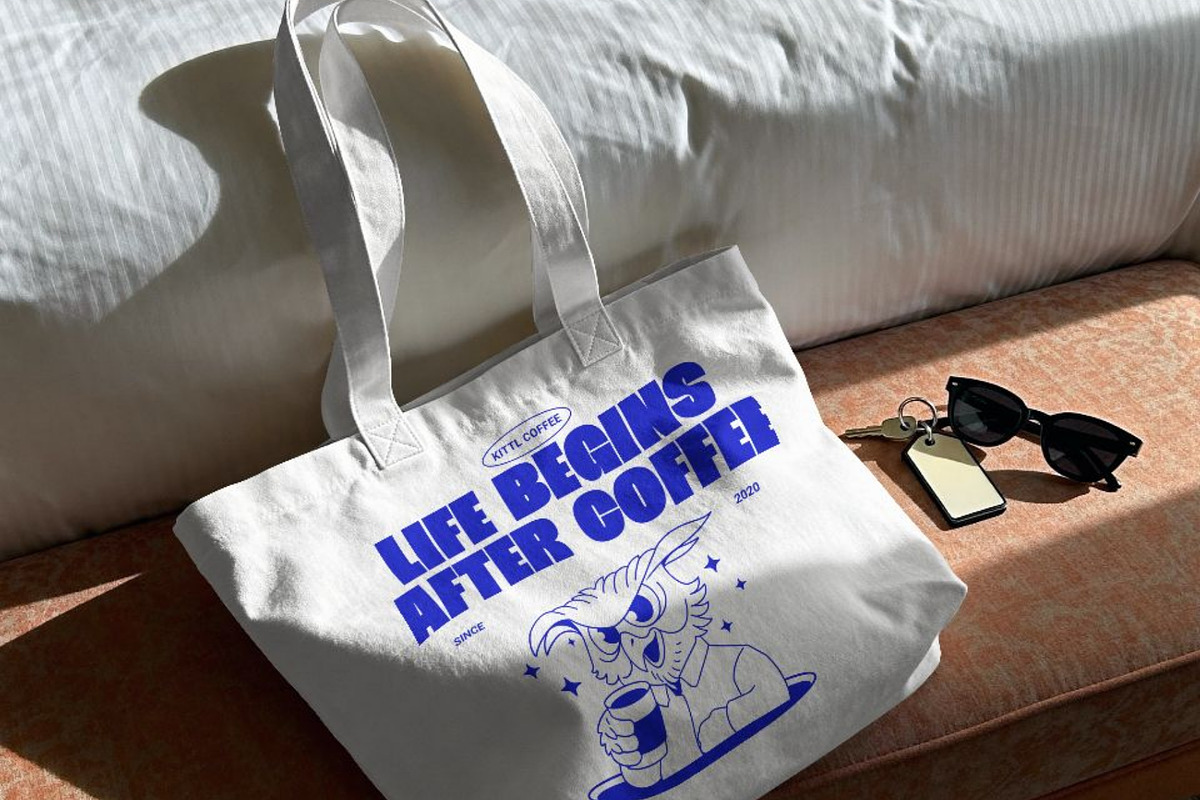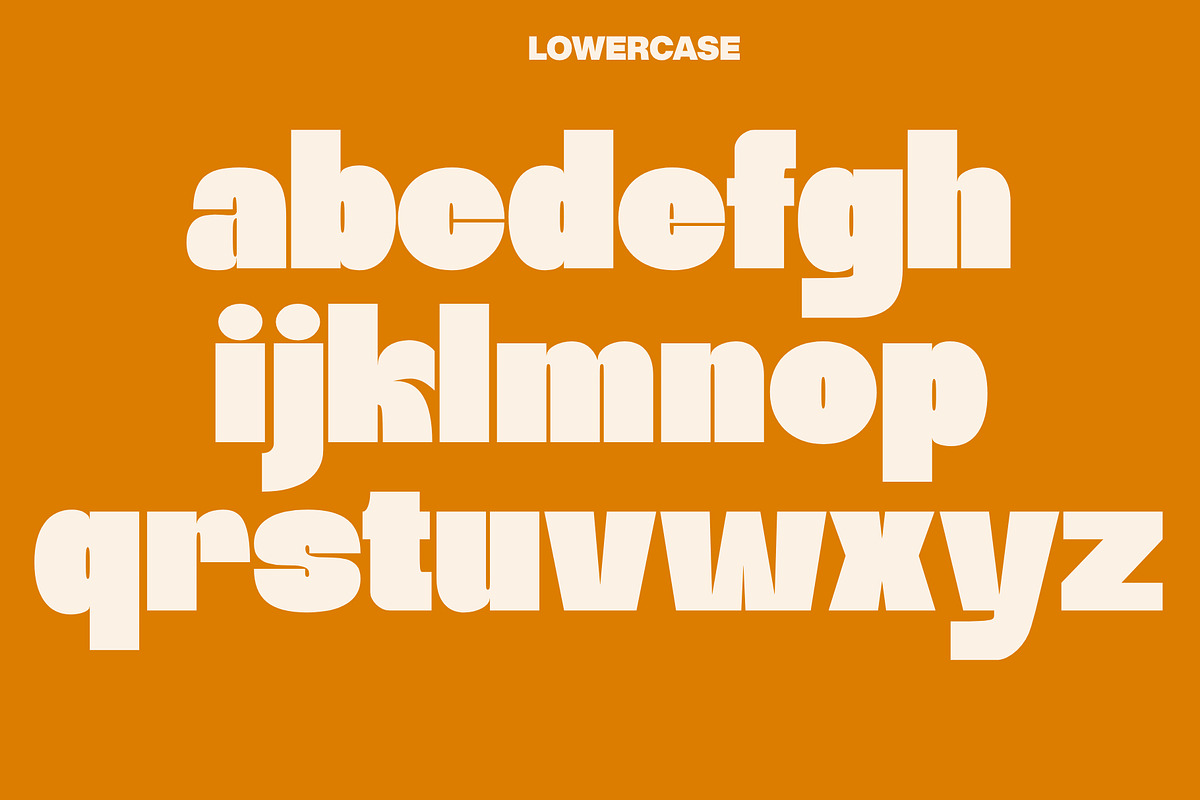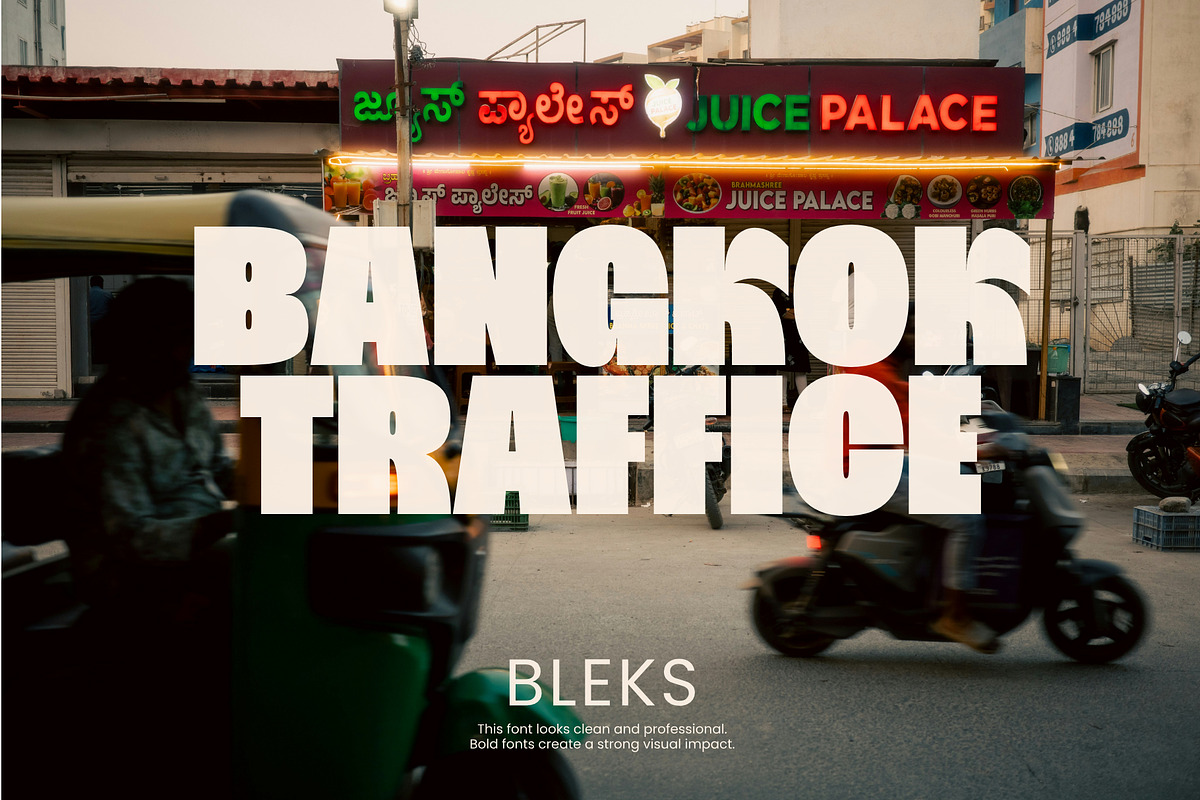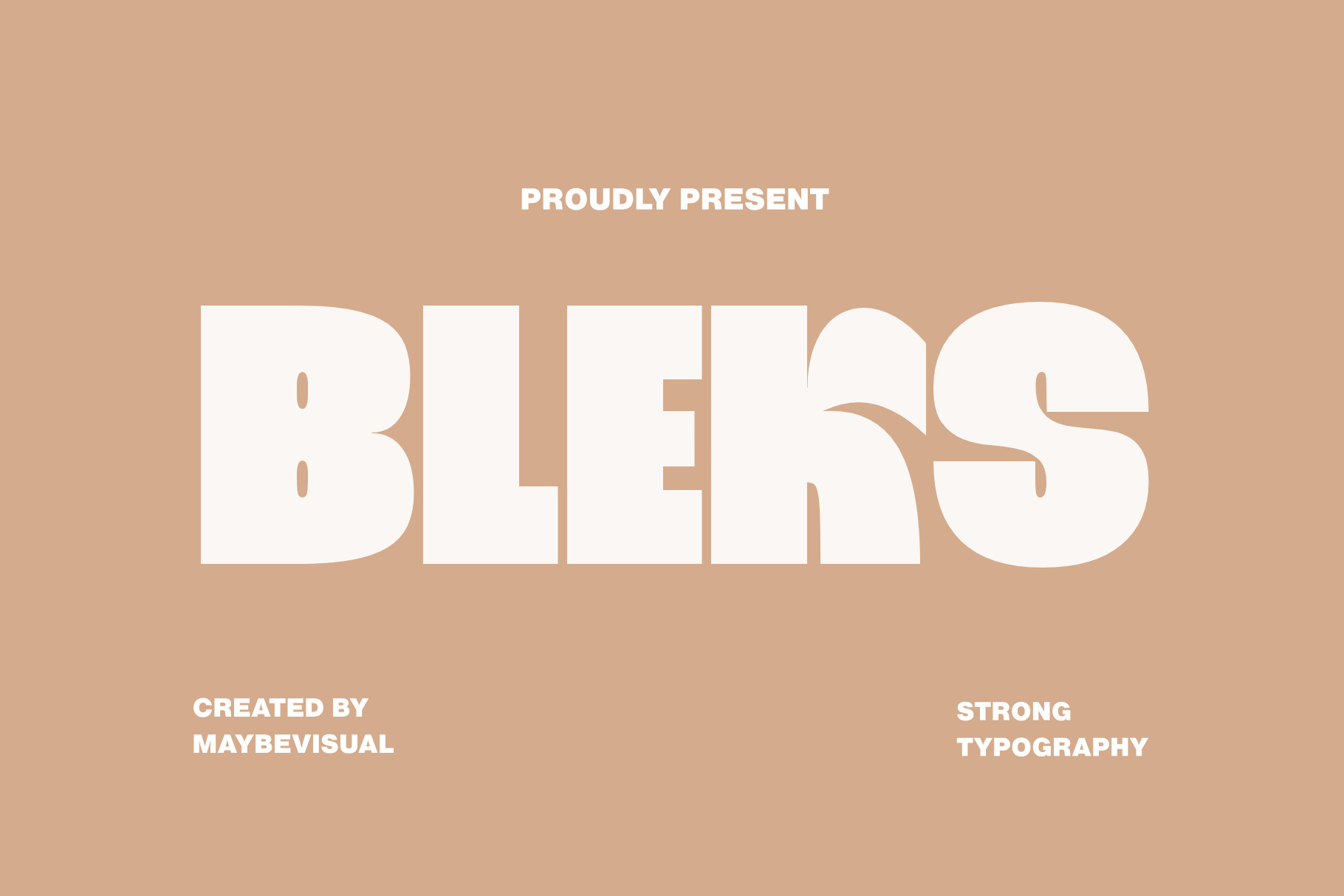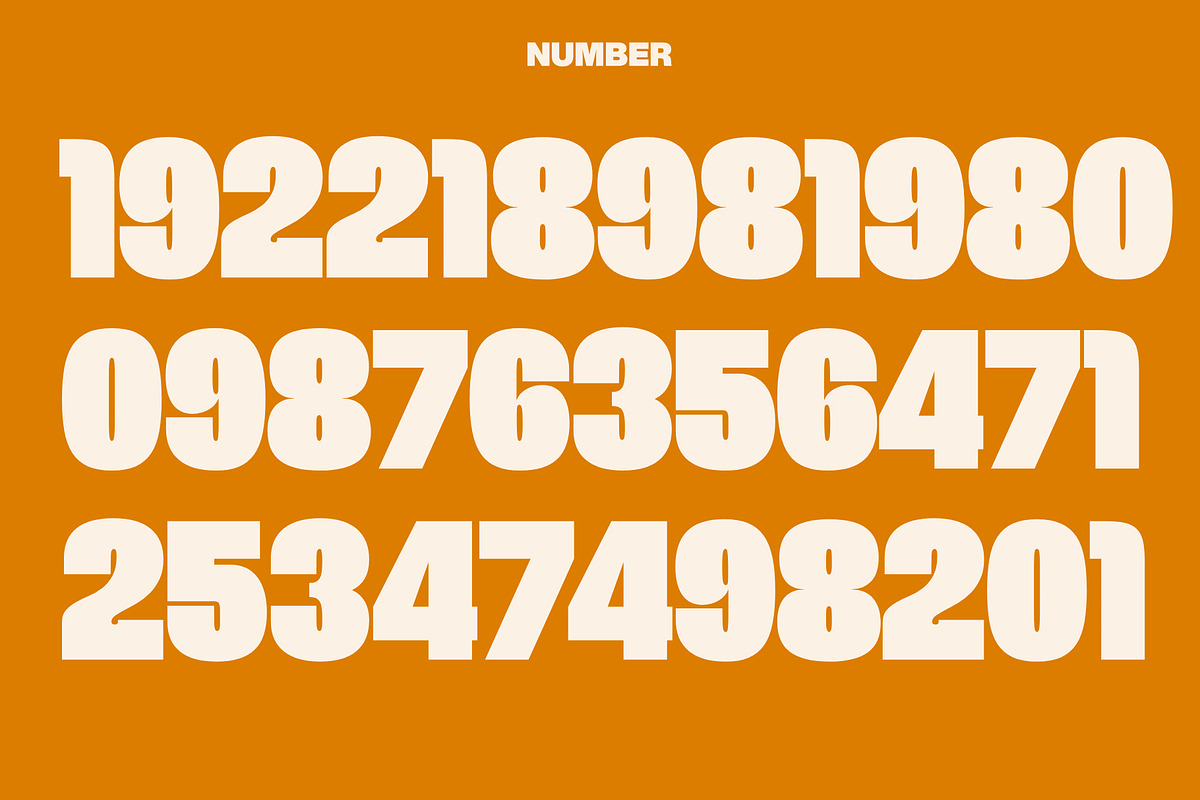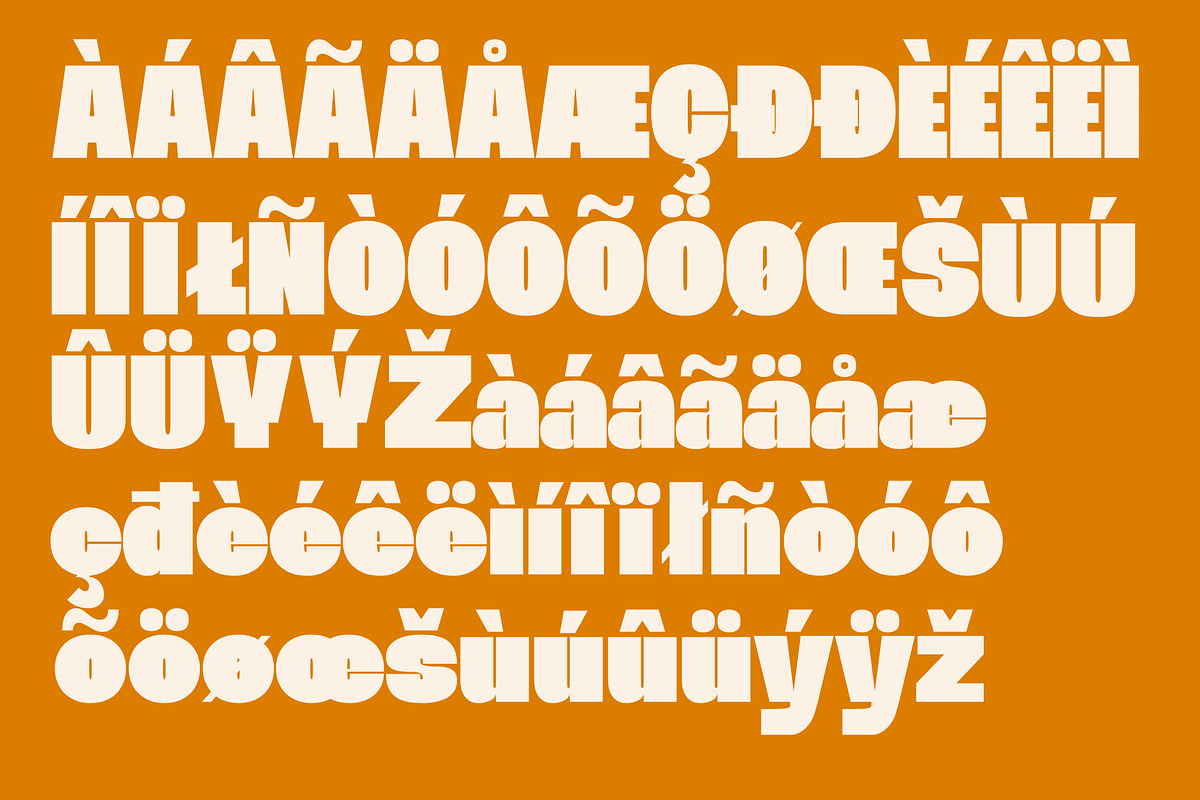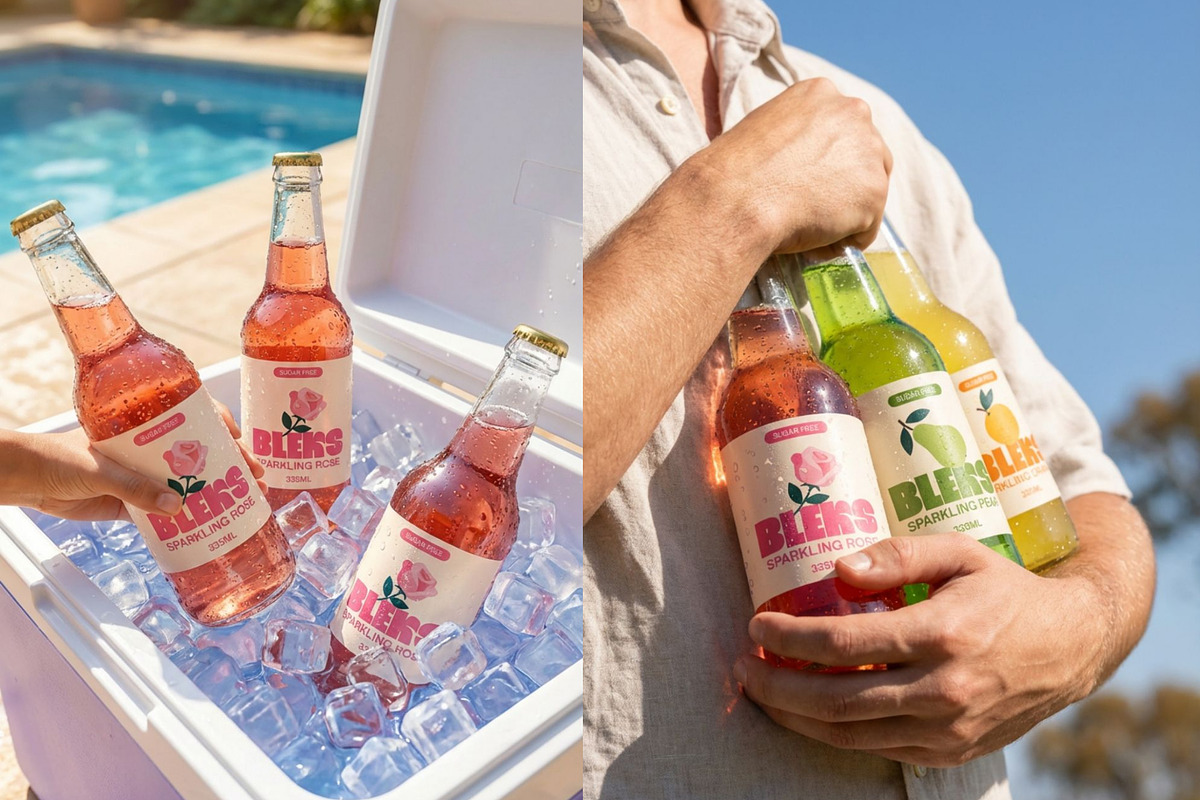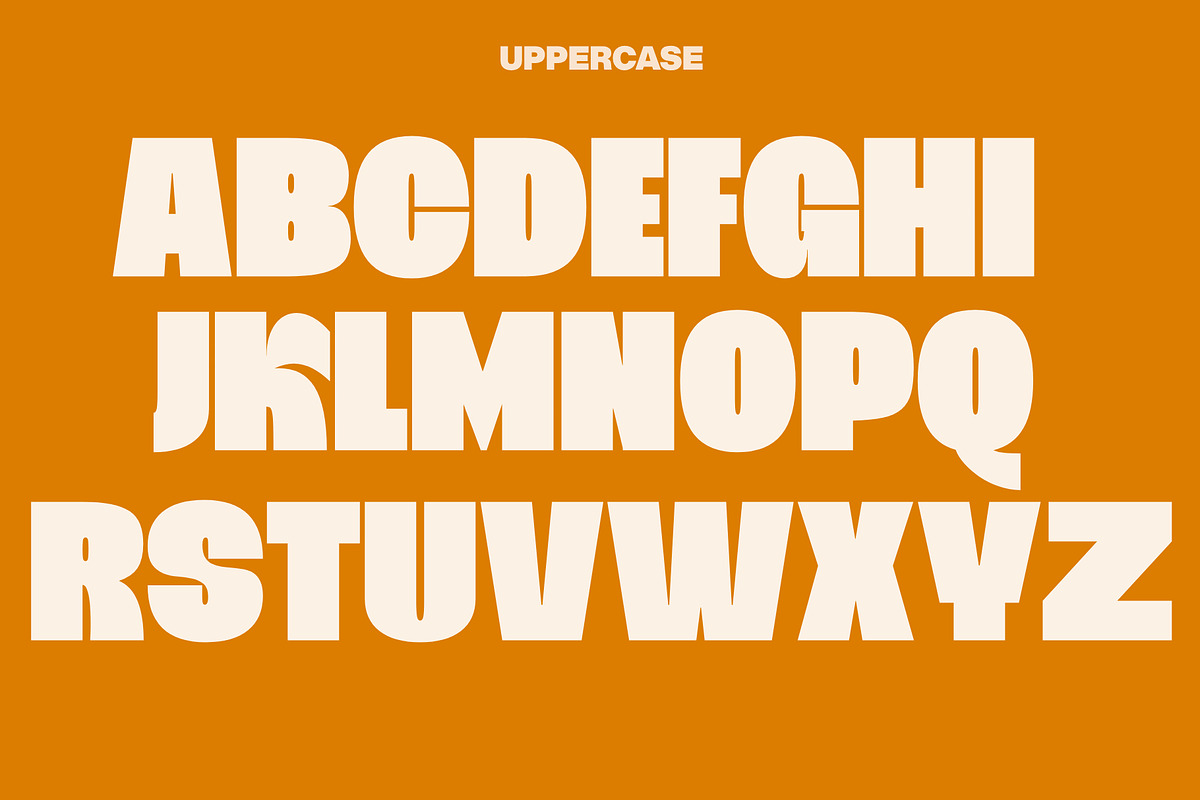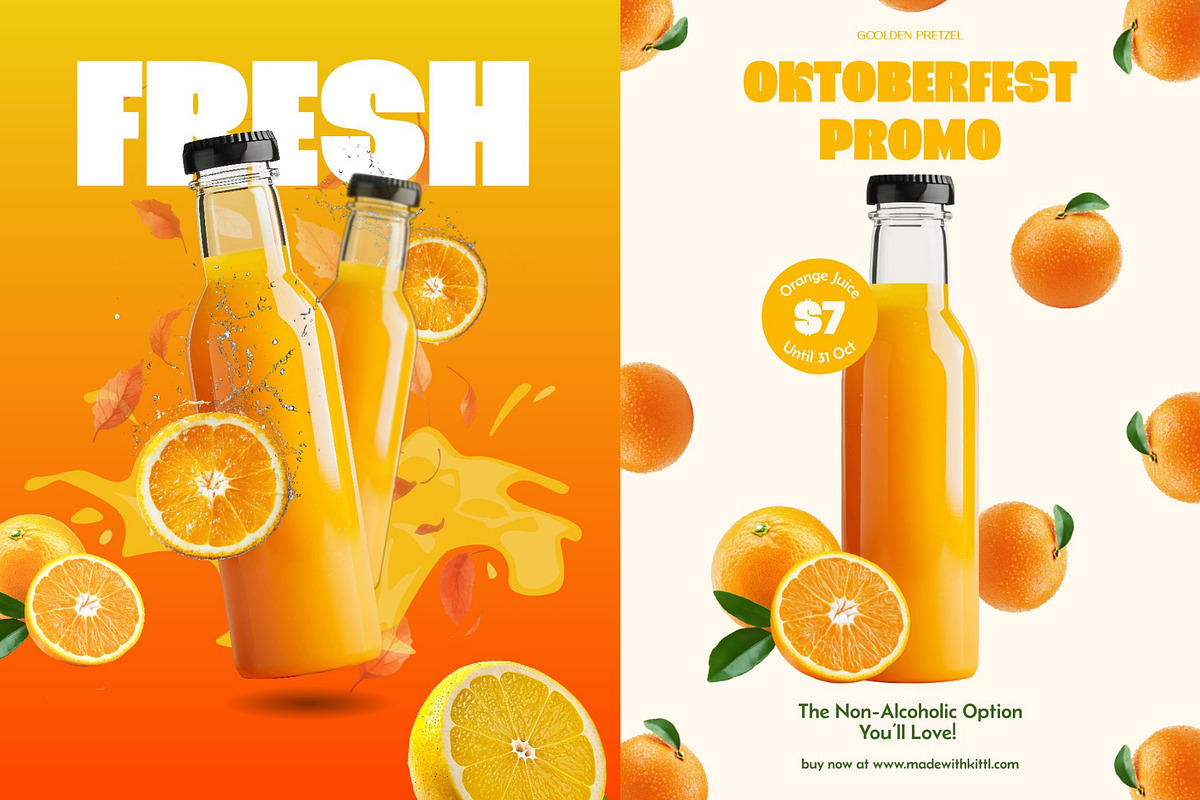
Bleks Display font
Bleks is a bold and modern display font designed to create a strong visual impact. With its thick letterforms, smooth curves, and slightly playful shapes, this typeface stands out perfectly in headlines, posters, branding, and logo designs. The unique character cuts and rounded edges give Bleks a contemporary and friendly feel while still maintaining a powerful typographic presence. This font is ideal for designers who want to deliver eye-catching, confident, and stylish typography in their creative projects.